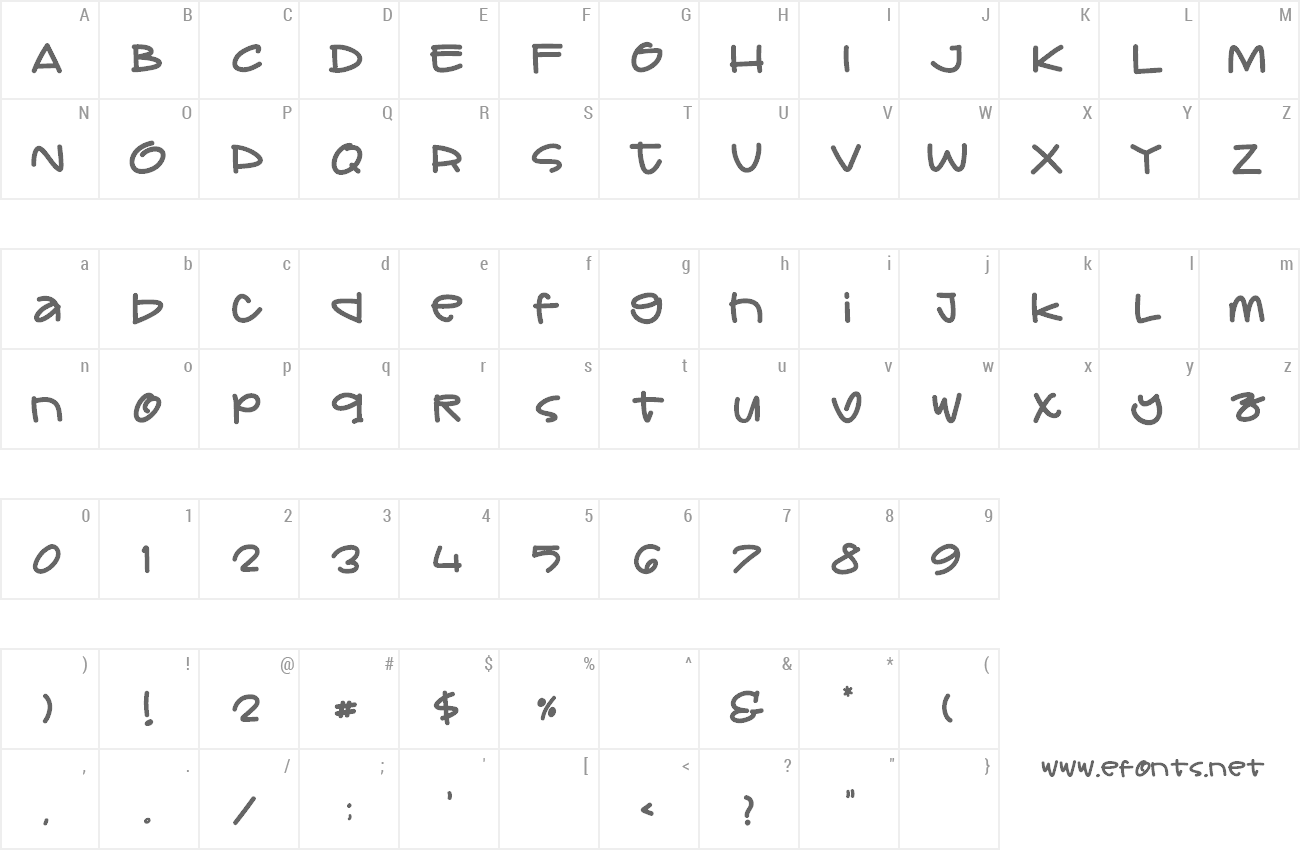
Introducing: DEAR Daddy! FOR PERSONAL USE ONLY A fun hand-written font mix match low-upper case. with the character Happy n Fun, it is amazing for your design project, such as Kids apparel, Packaging design, Resto, Cafe, Greeting and more. Get licensed: https://fontbundles.net/lemoncraft/173707-dear-daddy I really appreciate your donation to us, PayPal account: a_putera@yahoo.com I really hope you enjoy it. Thank you :) |